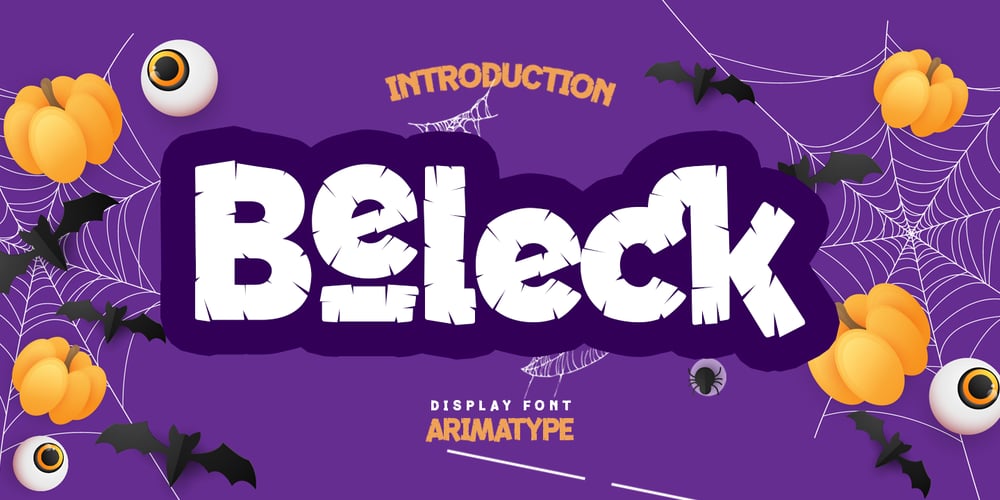
Beleck
Beleck font
Beleck Font Family was designed by Amri Mauludin and published by ArimaType. Beleck contains 1 styles and family package options. Beleck is a bold and horror display font. To make your creations look amazing, this font has the potential to take your creative ideas further. It is perfect for your horror designs and also a unique alternative to display designs.Beleck was designed for the needs of Halloween themed design concepts and events in October and November. Beleck is also perfect for quotes, greeting cards, invitations, posters, business cards, presentations and more.